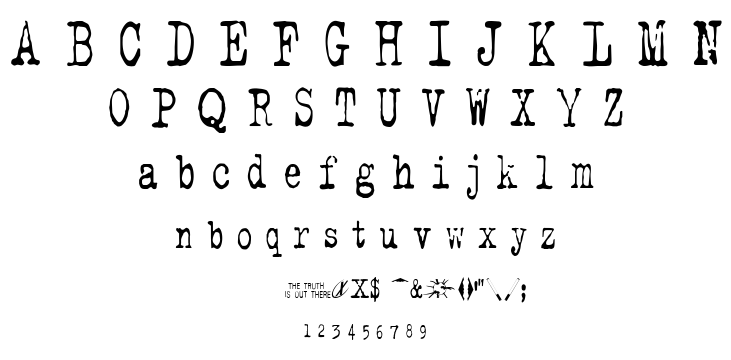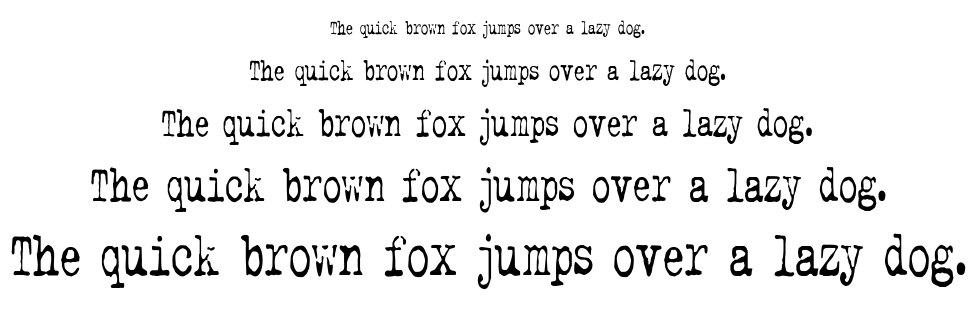
The X-Files font.
I have always wanted to create a real The X-Files fan-font based on the 9 season TV show, and the 2 feature films already released, so with the advent of the third movie to complete of this Trilogy, I give to you my latest font.